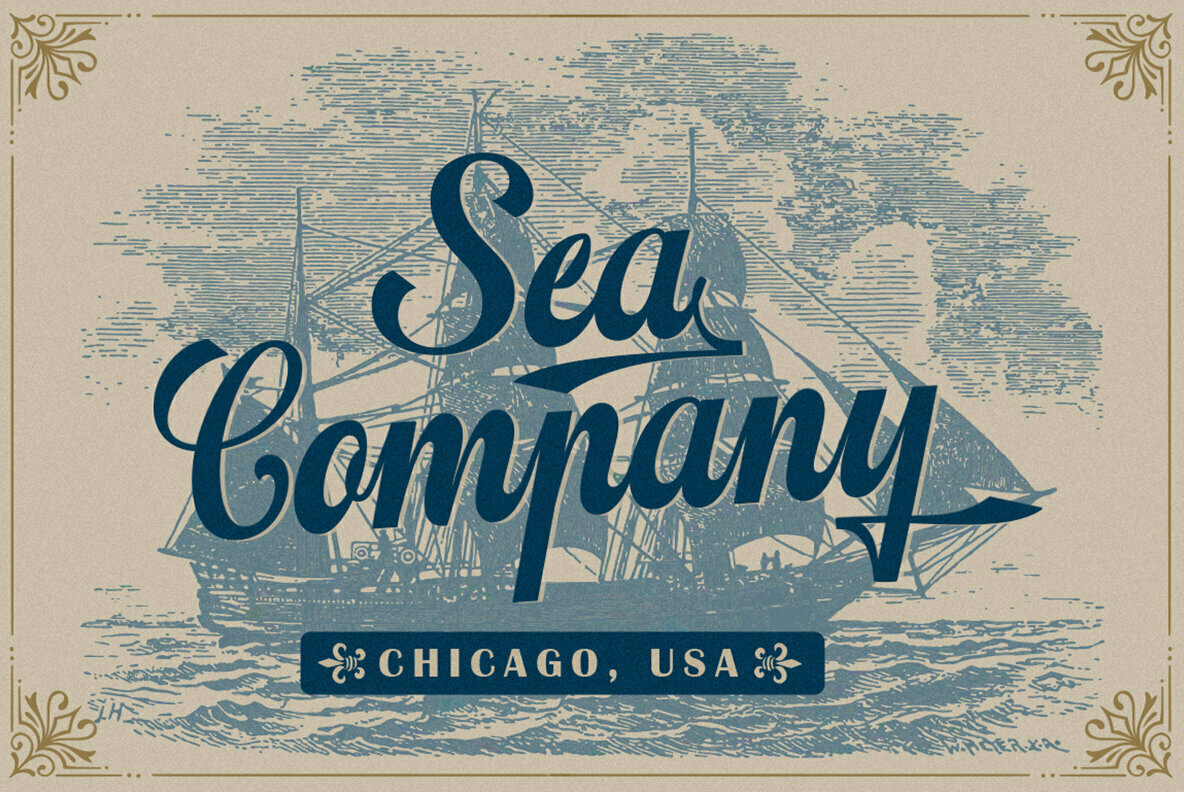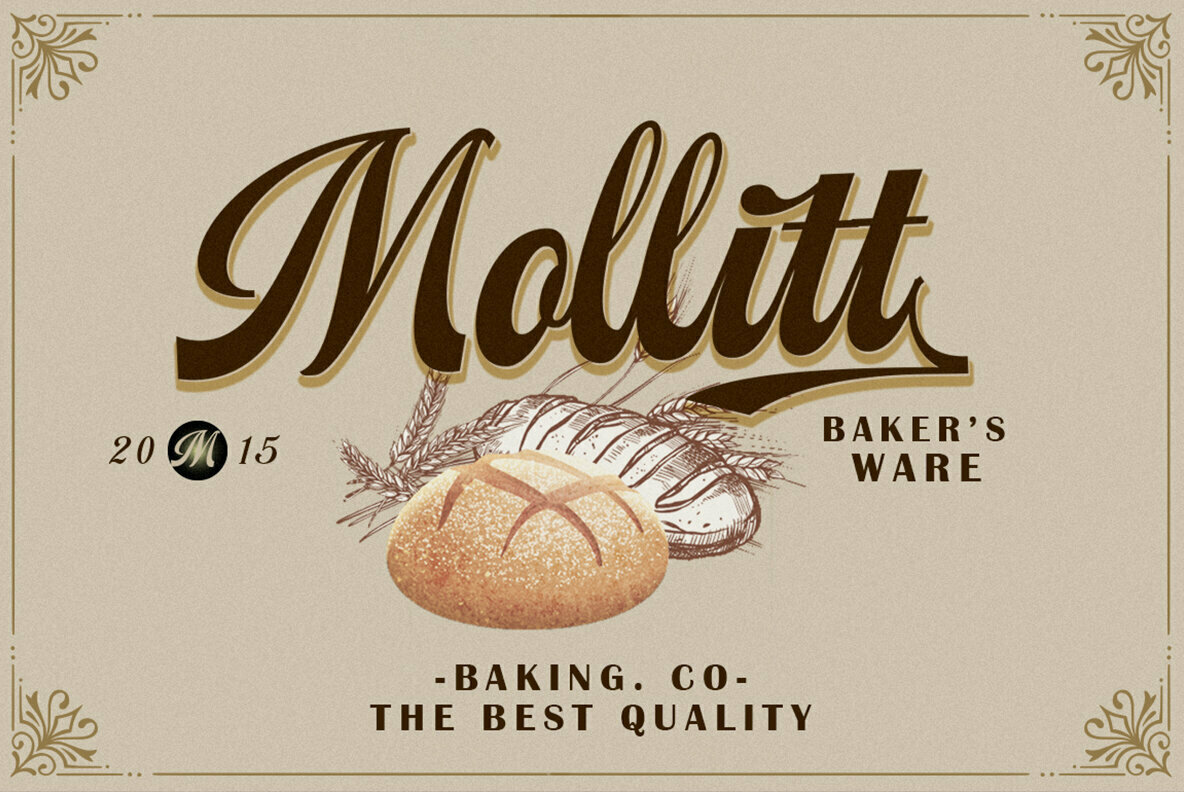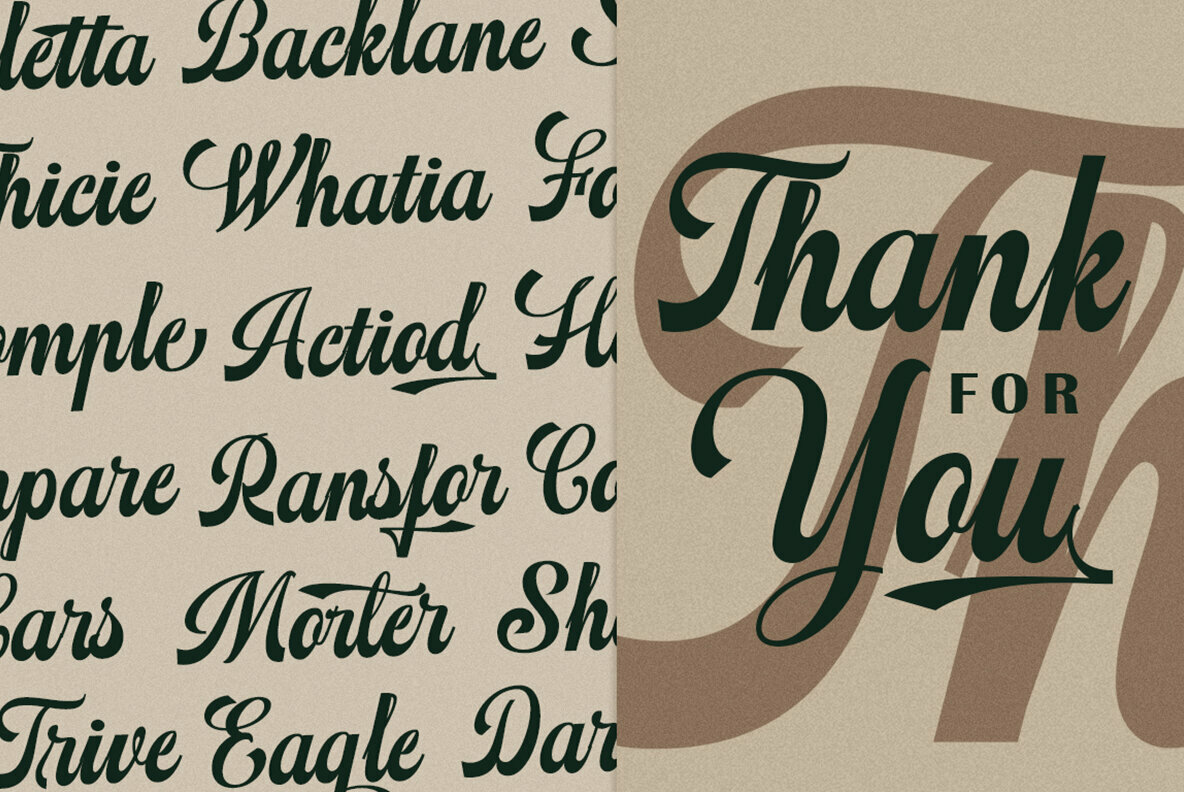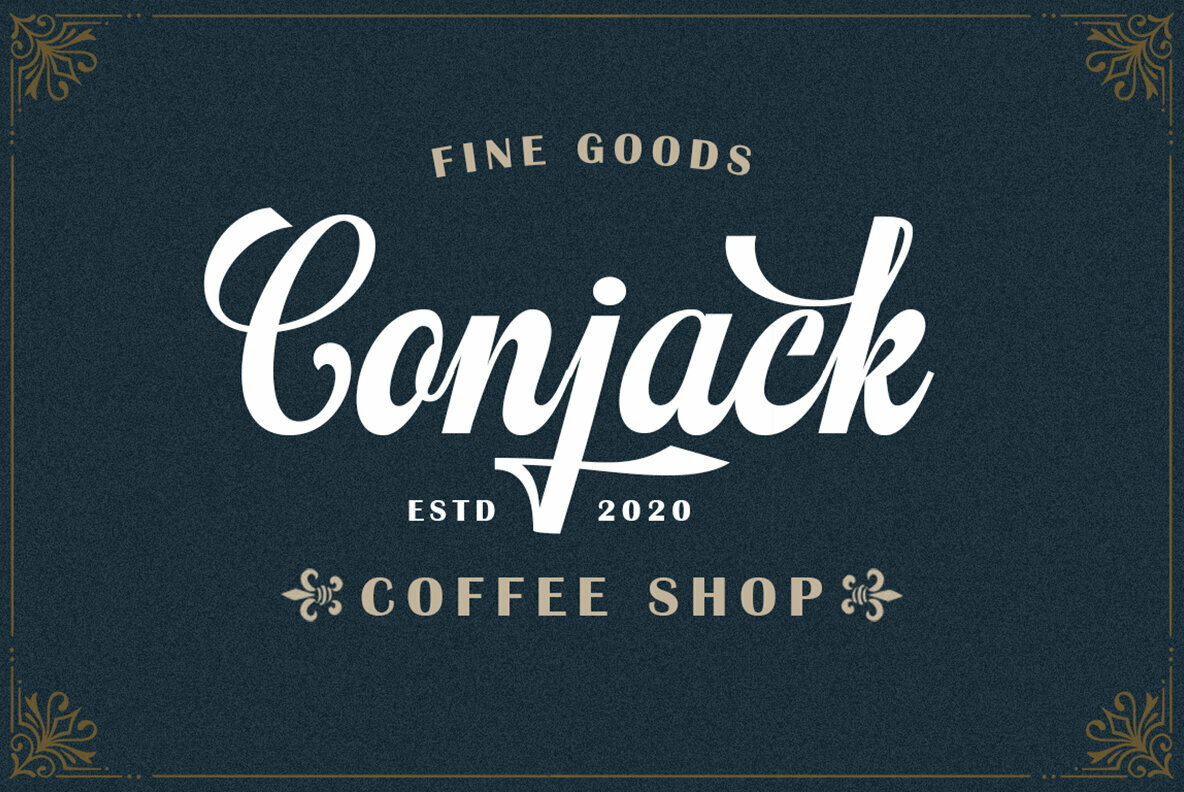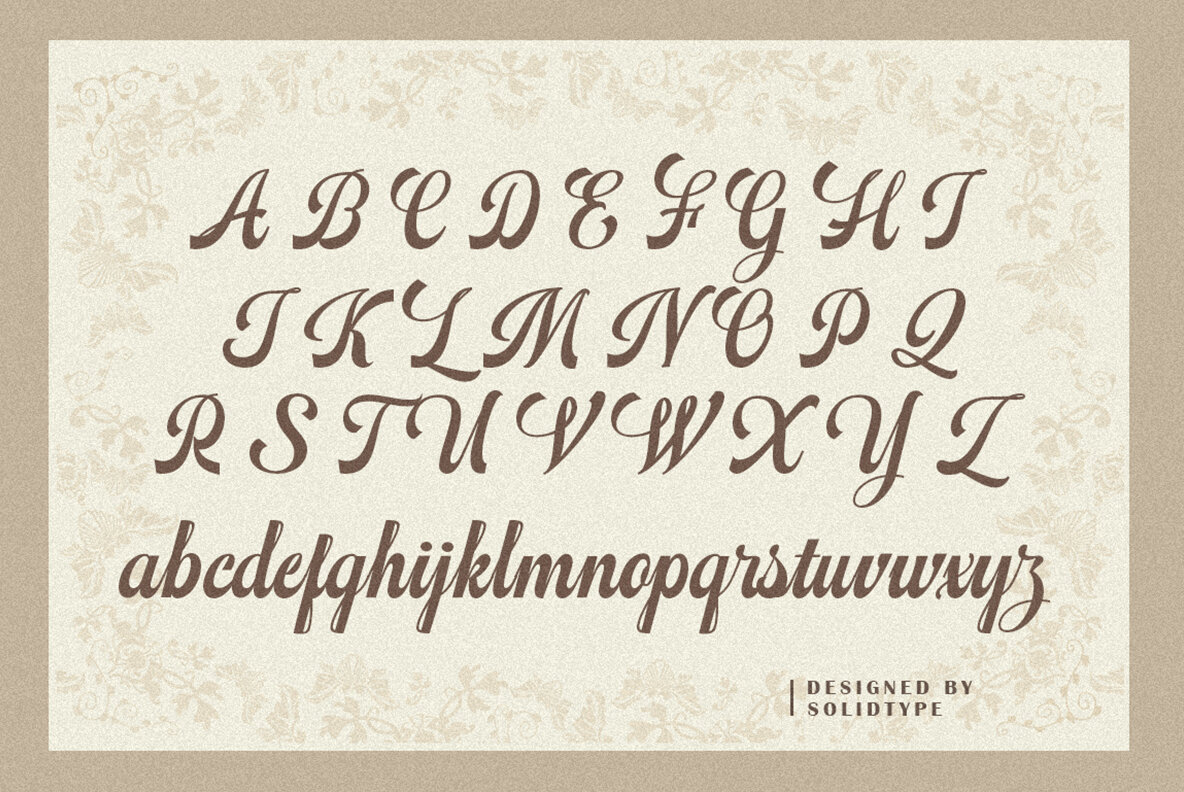
Mathovia Script Font
Mathovia Script
Mathovia Script captures a distinctly nostalgic vibe with its bold and classic vintage style. Exuding an energetic yet refined charm, the font's sweeping letterforms elegantly decorate any retro-themed project. Whether crafting signage, logos, or creative apparel, this typeface lends an authentic voice to your vision.Mathovia Script: Nostalgic Vintage Typeface